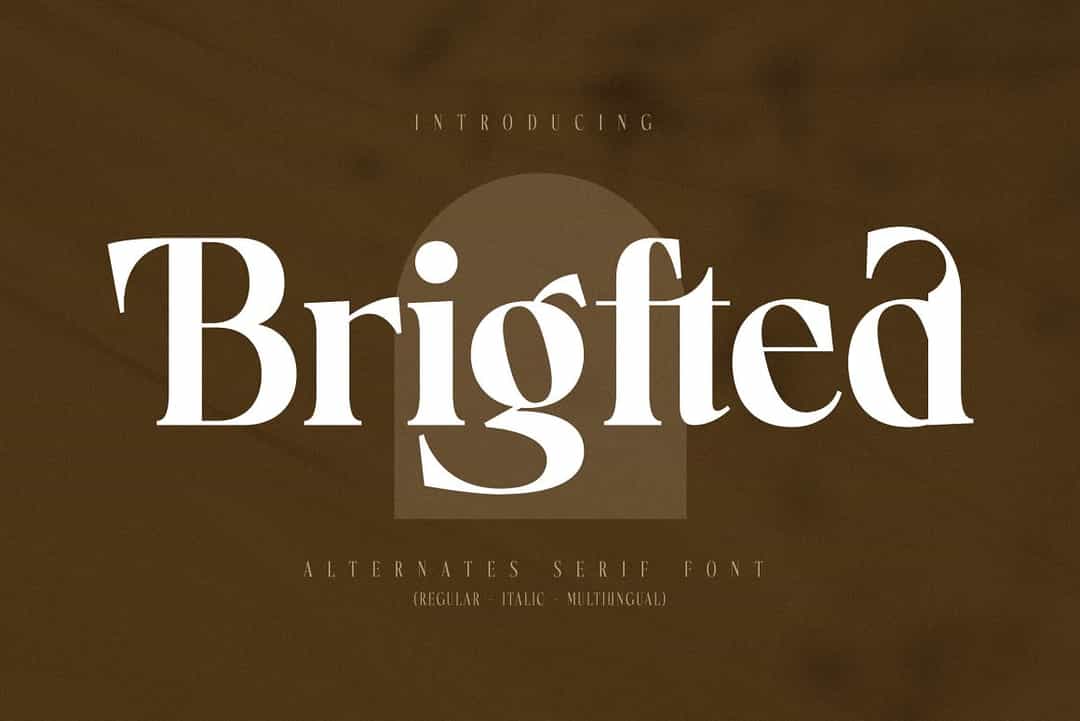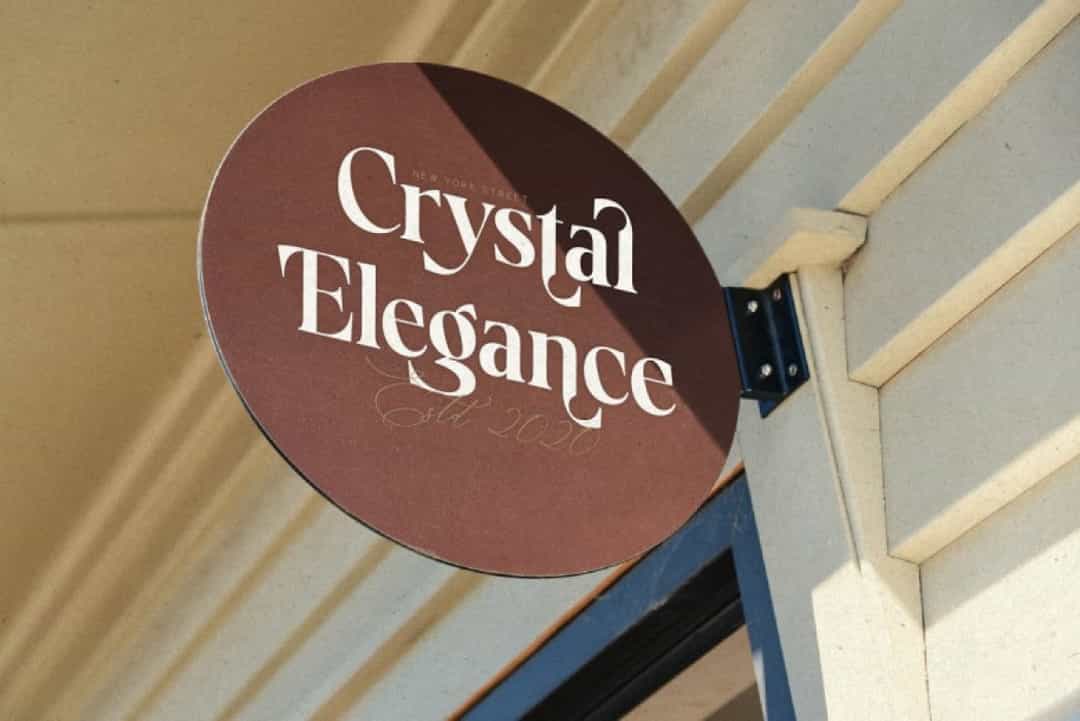
Brigfted is a modern serif typeface, ideal for creating stylish logos, movie or book style graphics, fashion label clothing labels, magazine letters, quotes and many other applications.